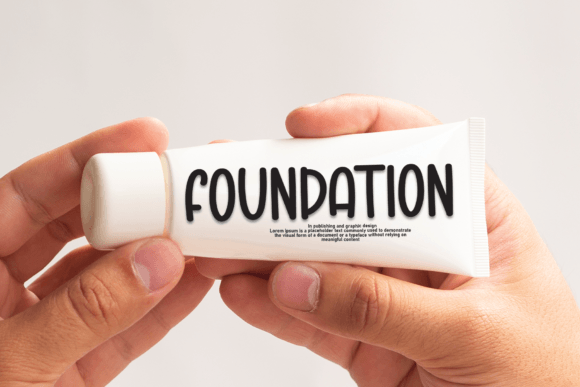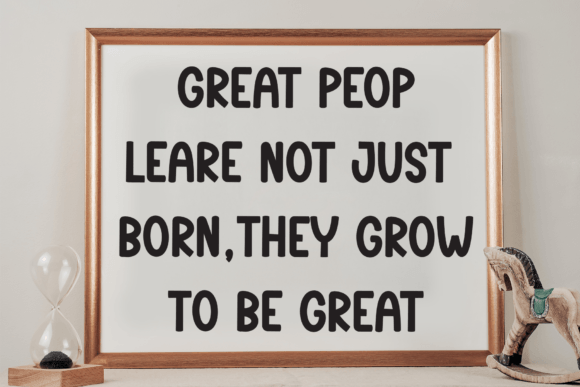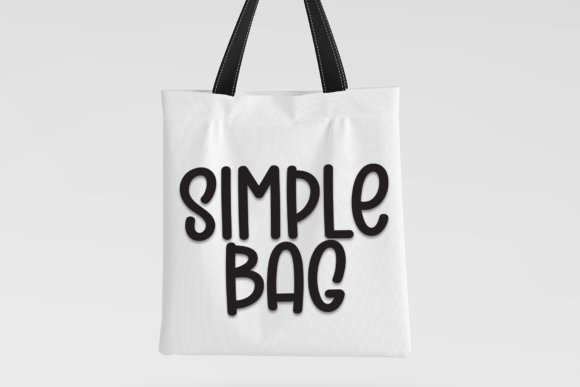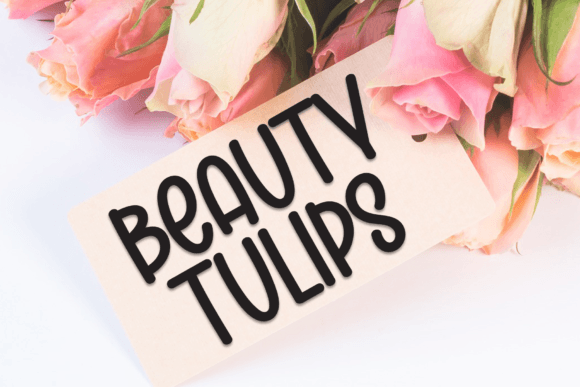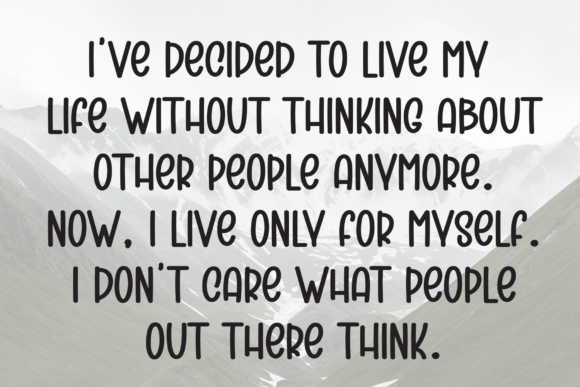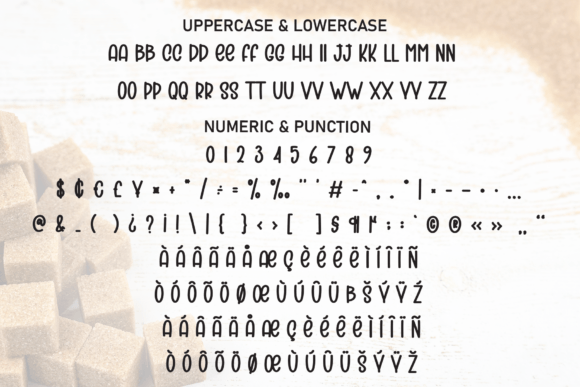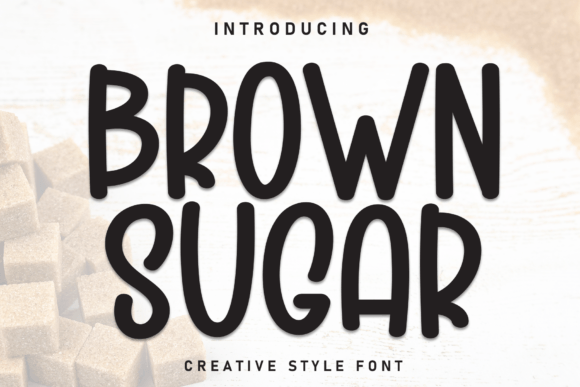
The Sweet Spot: Discovering the Charm of Brown Sugar Font
I’ll never forget the time I was working on a fun project for a client’s birthday card. I had all the design elements ready, but I just couldn’t find the right font to bring it all together. The card needed to be playful, friendly, and easy to read. That’s when I stumbled upon the Brown Sugar font. It was like the icing on the cake – or should I say, the sprinkles on the ice cream? 🍦
This playful handwritten font with all capital letters instantly caught my attention. The letters looked bold and smooth, as if written with a marker. I knew right then and there that it was the perfect fit for my project. In this article, I’ll share with you why I love Brown Sugar font, its quirks, and how to make the most of it in your designs.
• ✨ Easy to read: Brown Sugar font is clear and legible, making it perfect for designs where readability is key.
• ✅ Friendly and casual feel: This font adds a warm, approachable vibe to any text, making it ideal for fun projects and informal designs.
• 🎉 Playful and bold: The font’s bold and smooth letters give it a celebratory feel, perfect for greeting cards, party invitations, and more.
While Brown Sugar font is amazing, there are a few things to keep in mind:
• ⚠️ All capital letters: This font is designed with all capital letters, which might limit its use for body text or longer paragraphs.
• 🤔 Limited versatility: While it’s perfect for fun and casual designs, it might not be the best fit for more formal or professional projects.
Brown Sugar font comes with some exciting OpenType features and glyphs that can elevate your designs:
• Stylistic alternates: Some versions of the font offer stylistic alternates that can give your text a unique twist.
• Glyphs: The font may include additional glyphs like ligatures, ornaments, or swashes that can add a touch of personality to your designs.
The Story Behind Brown Sugar Font
The Brown Sugar font was designed with the intention of creating a friendly, approachable typeface that’s perfect for fun and casual designs. The designer wanted to create a font that felt like it was written with a marker – bold, smooth, and easy to read.
Q: What is the best use for Brown Sugar font?
A: Brown Sugar font is perfect for fun projects, greeting cards, or informal designs where you want to add a friendly, casual touch.
Q: Is Brown Sugar font available in different weights or styles?
A: Some versions of Brown Sugar font may offer different weights or styles, such as bold or italic. However, the standard version of the font is a single weight with all capital letters.
Q: Can I use Brown Sugar font for body text or longer paragraphs?
A: While Brown Sugar font is easy to read, it’s primarily designed for headlines or short paragraphs. For body text or longer paragraphs, you may want to consider a font with more variation in letterform and size.